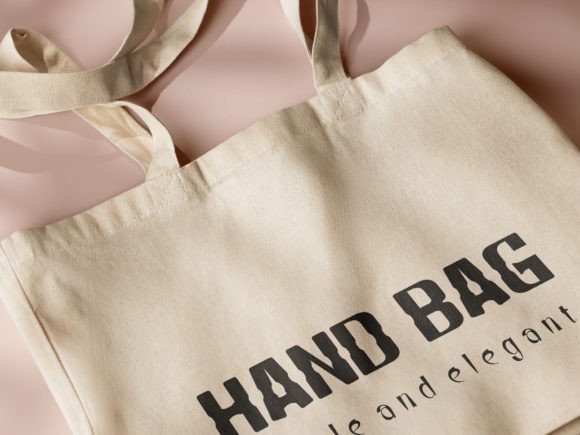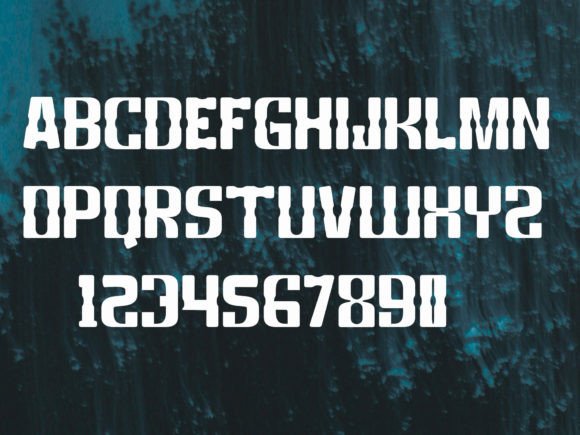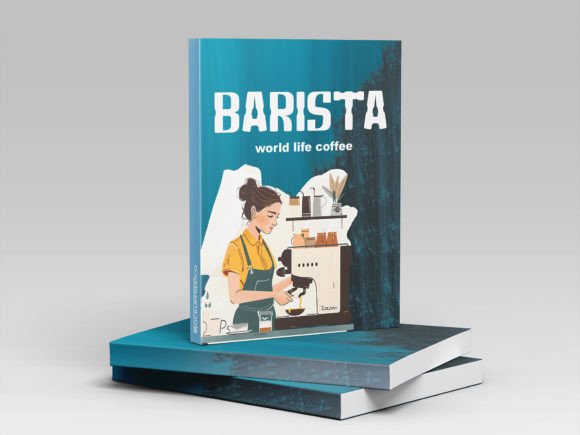
Introduction to Onella Font
Onella is a geometric family typeface available in nine thicknesses.
👤 Author Canden Meutuah
This is a simple and elegant modern font family, which is very suitable, especially for headlines, titles, brands, posters, packaging, titles, logos, and so on .